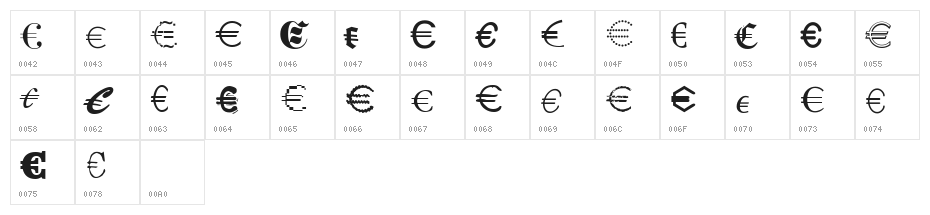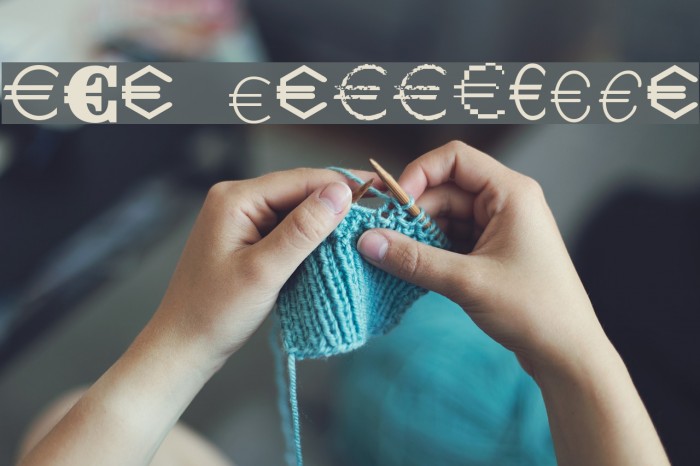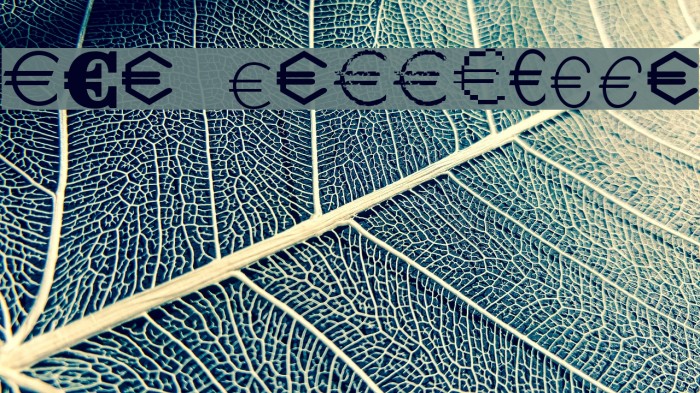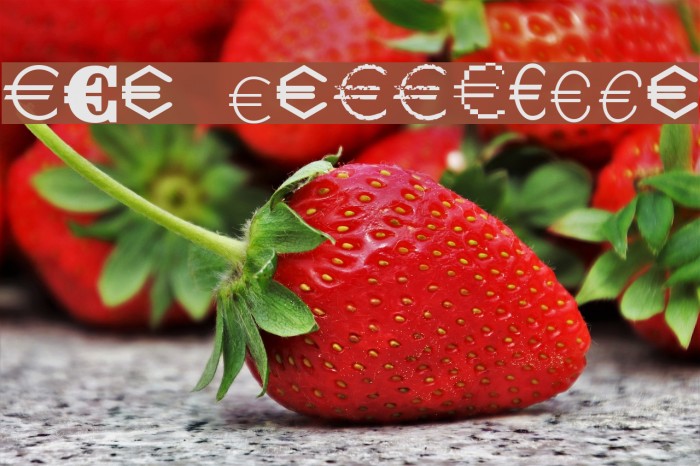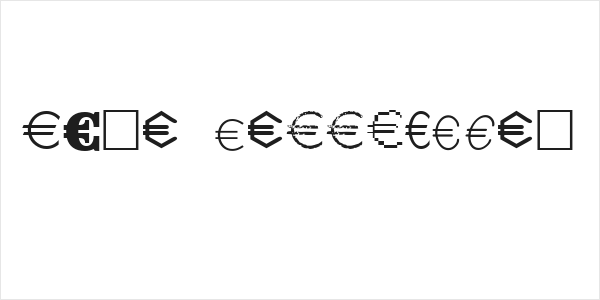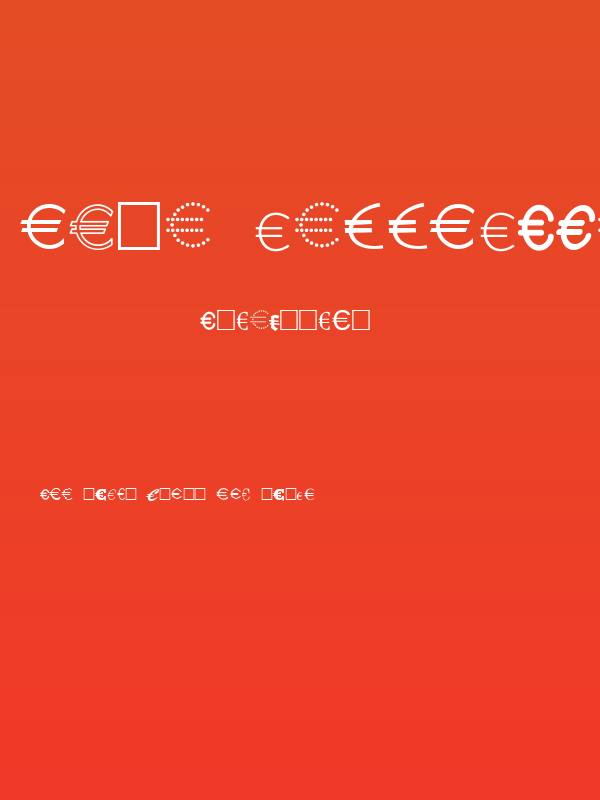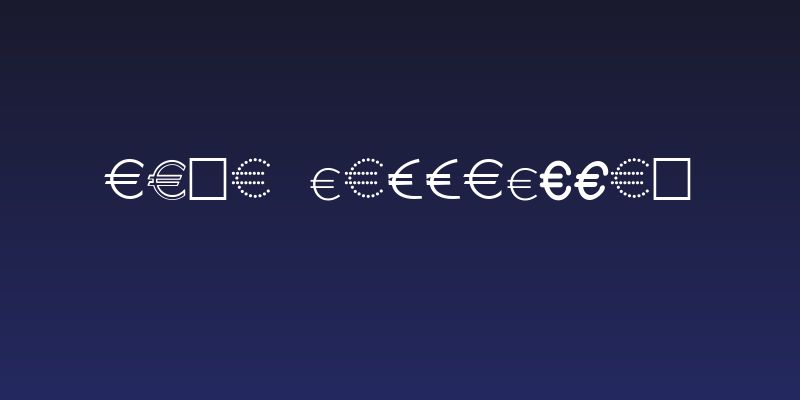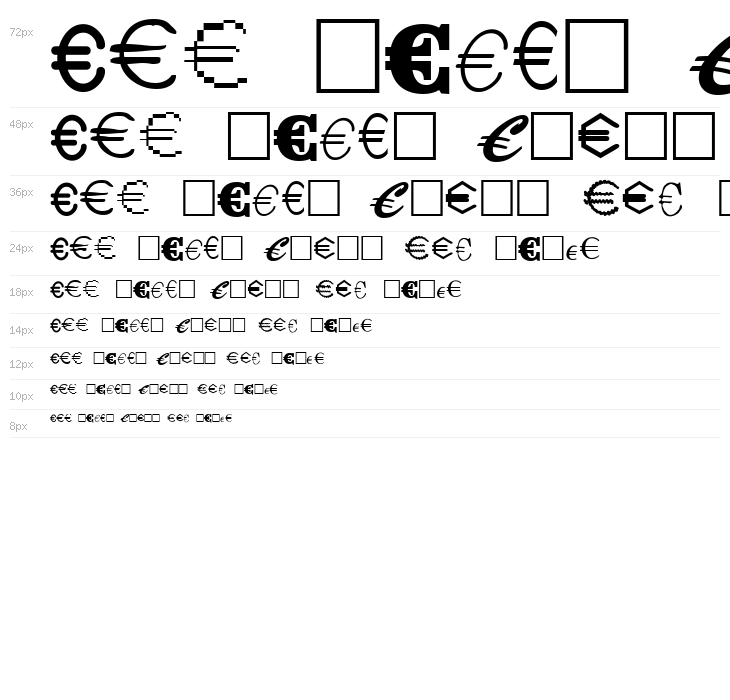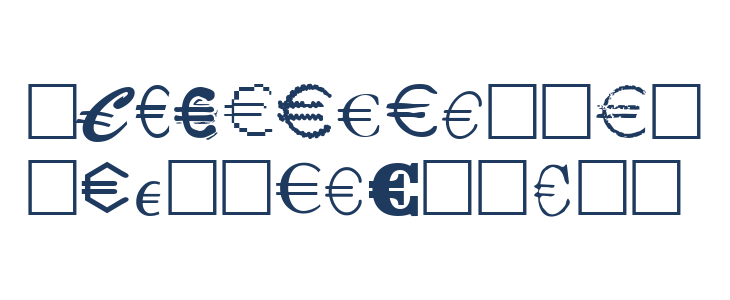
Euro Collection Font
Euro Collection Description
This collection features a variety of Euro symbol designs, each with a unique style and character. The symbols range from bold and solid to outlined and decorative, showcasing a diverse array of artistic interpretations. Some symbols incorporate elements like dots or stripes, while others play with the thickness and curvature of the lines. This collection is ideal for projects that require a creative and varied representation of the Euro symbol, offering options that can suit different themes and aesthetics.